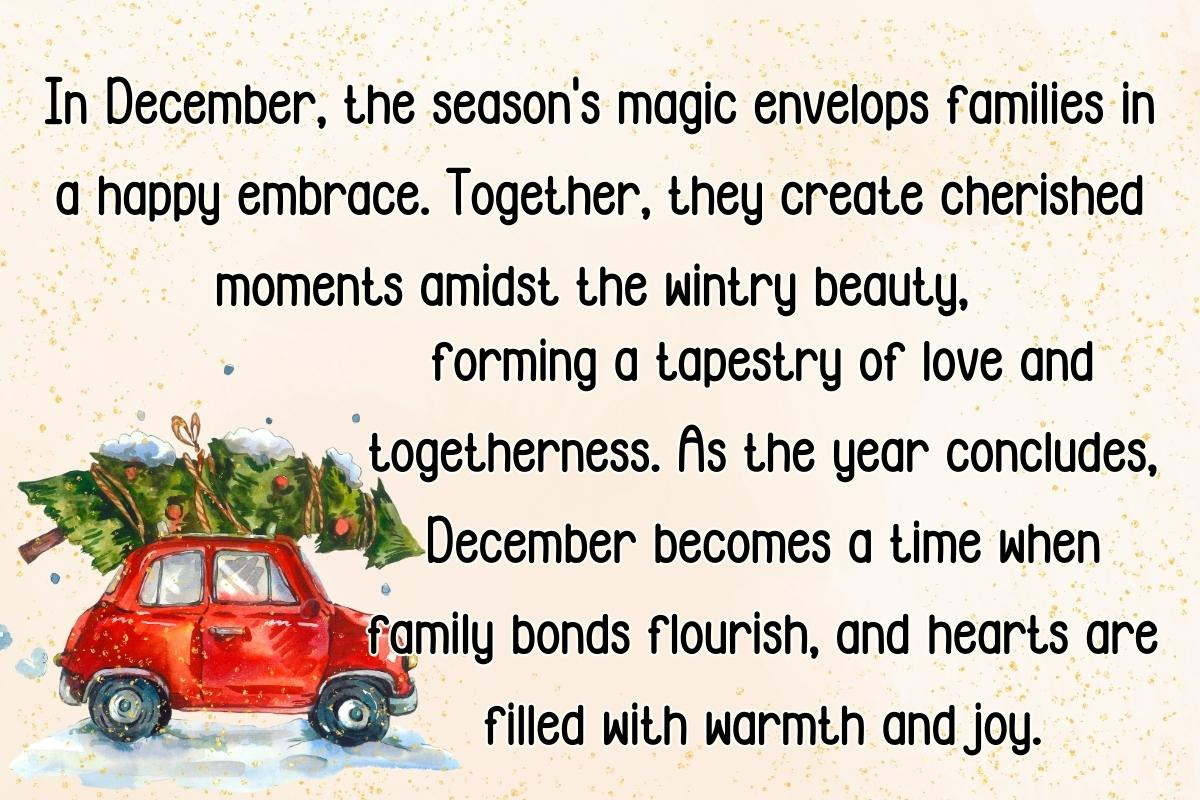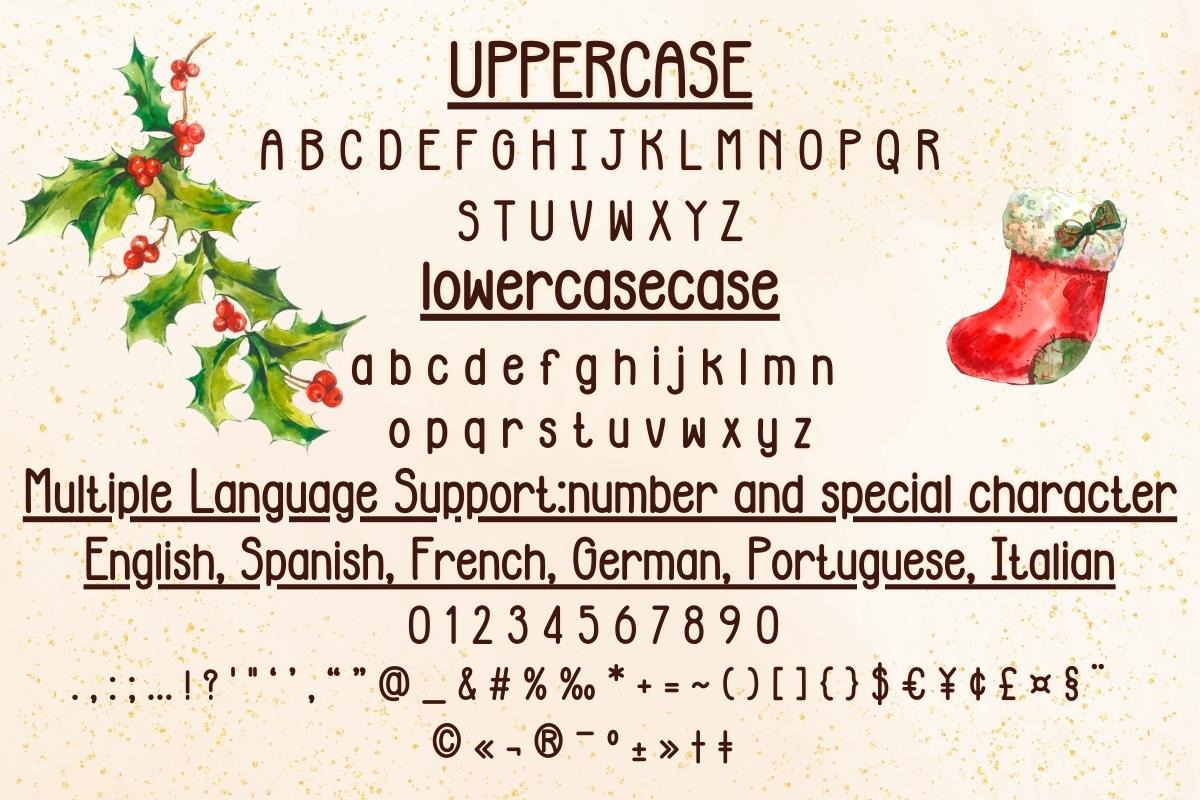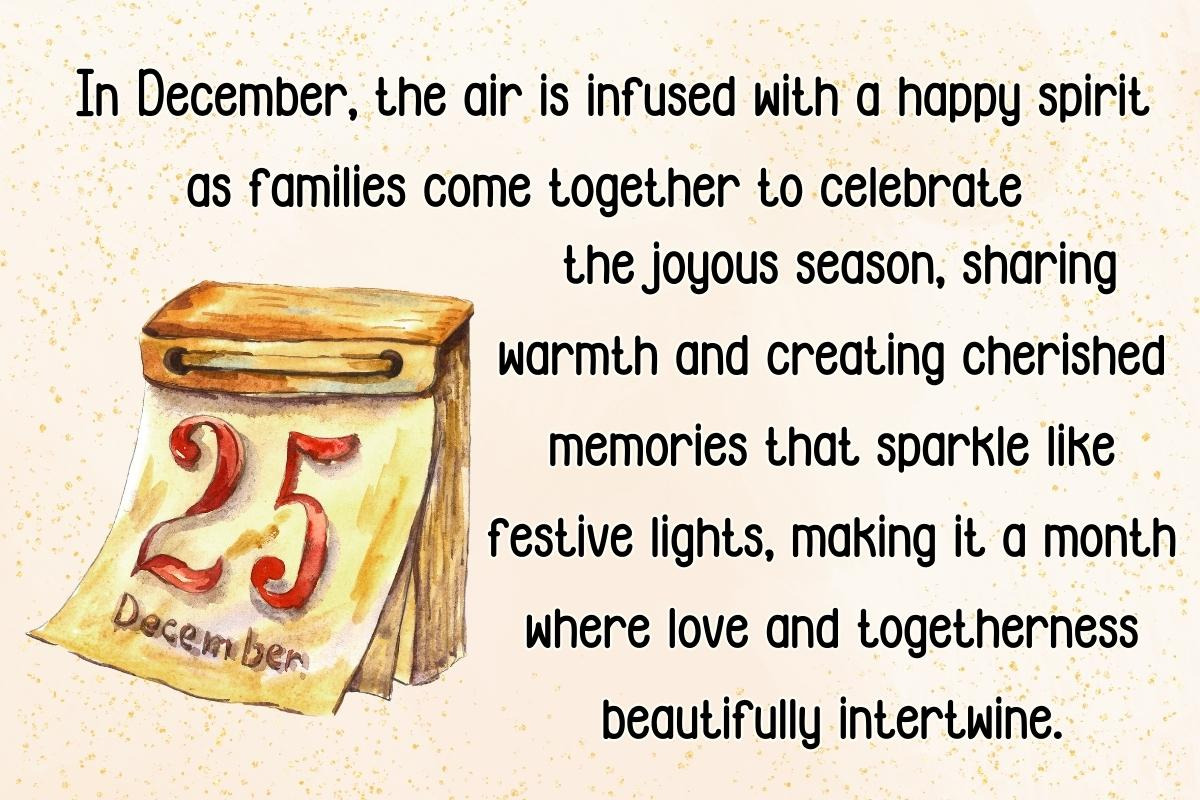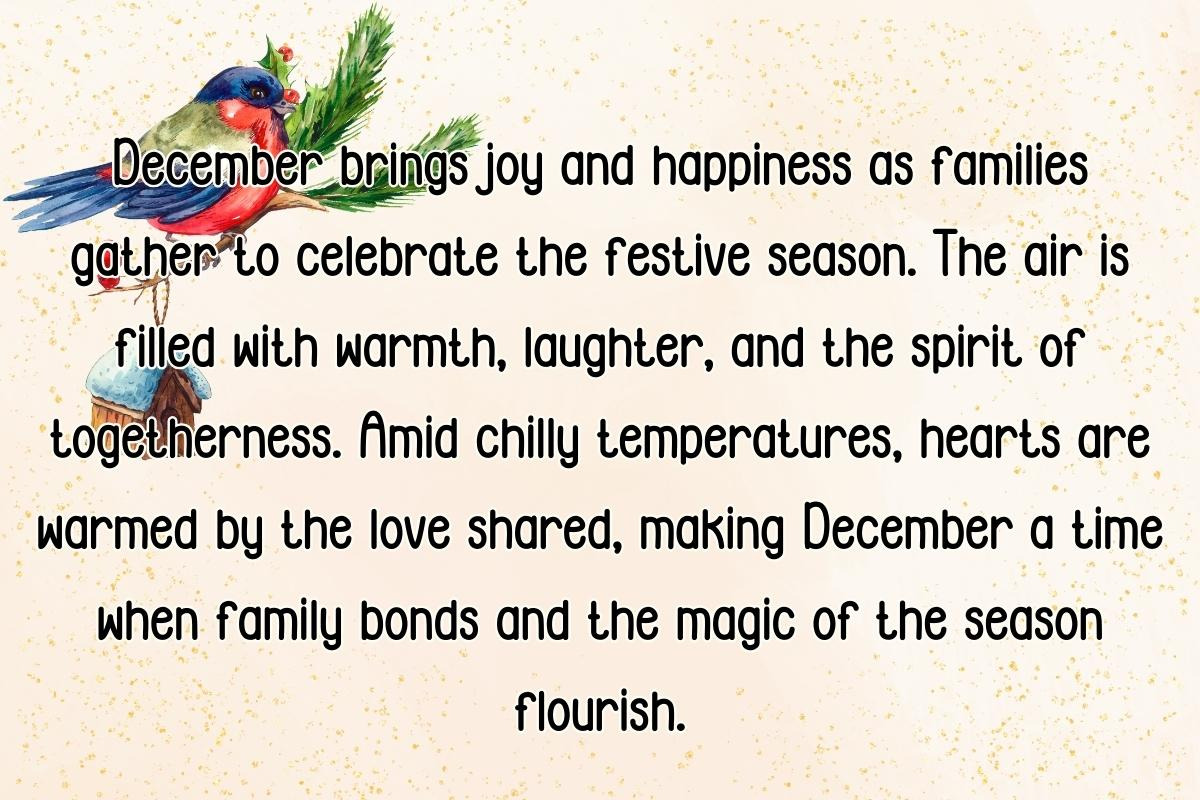
Happy December - Handwritting
Step into a world of whimsy and warmth with "Happy December," a font that dances with the joy of the season. Embrace the playful curves and festive spirit as each letter tells a tale of holiday cheer. Let your words sparkle and shine like snowflakes. Try Happy December and let your text twinkle!